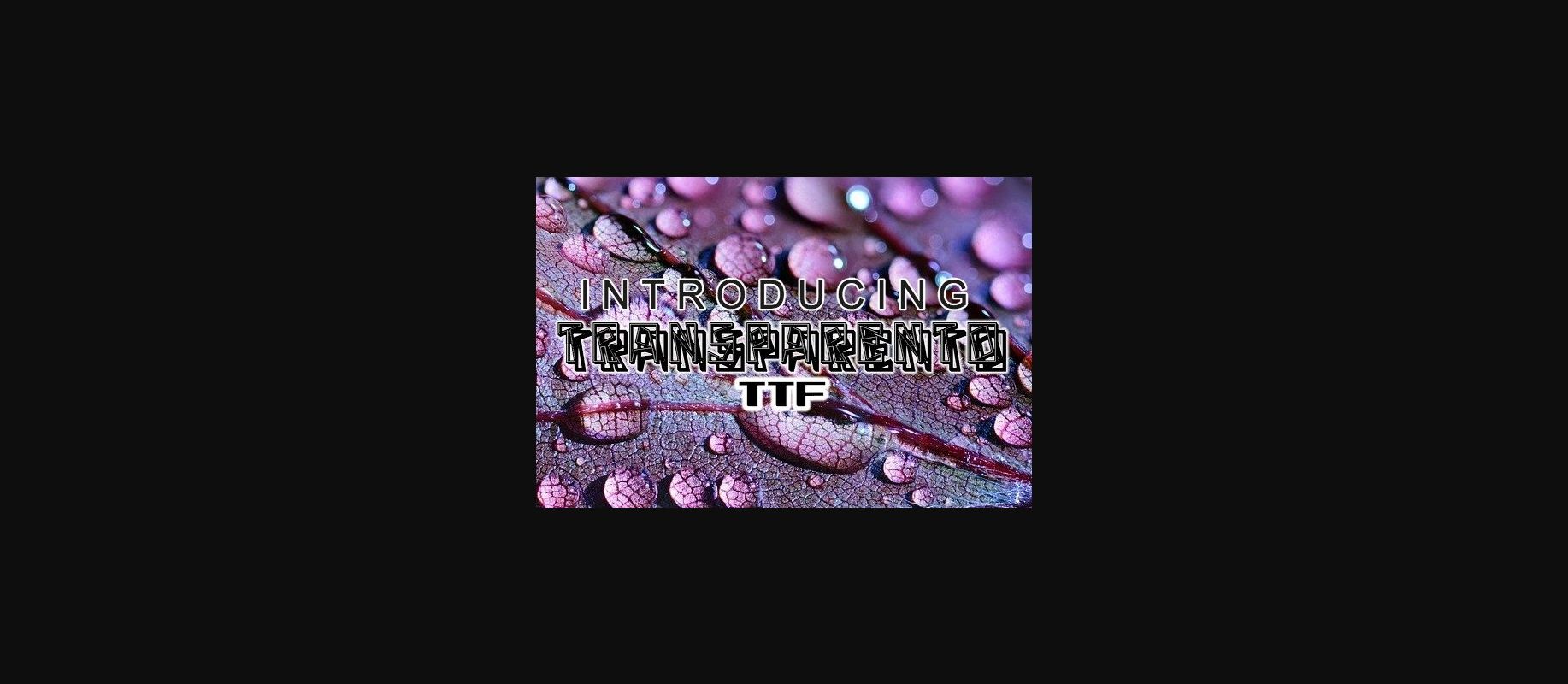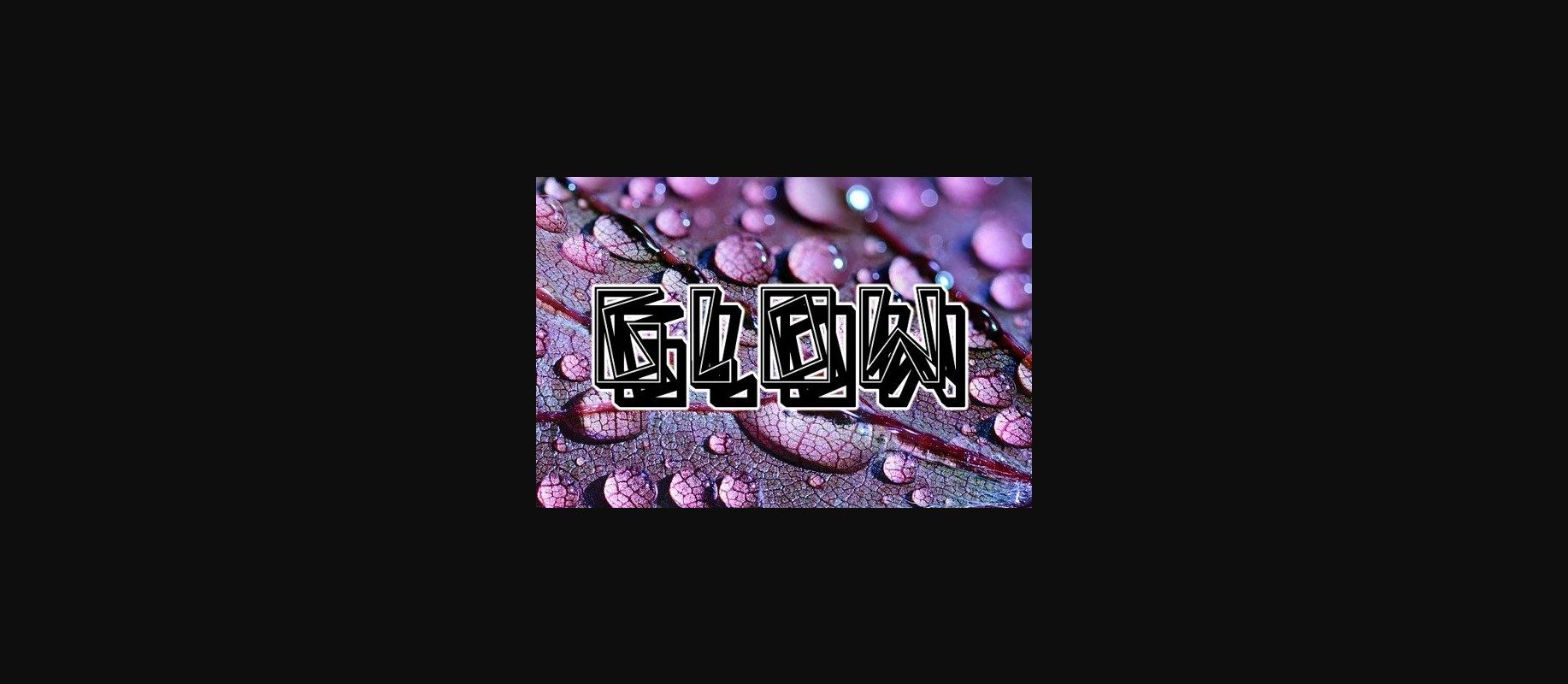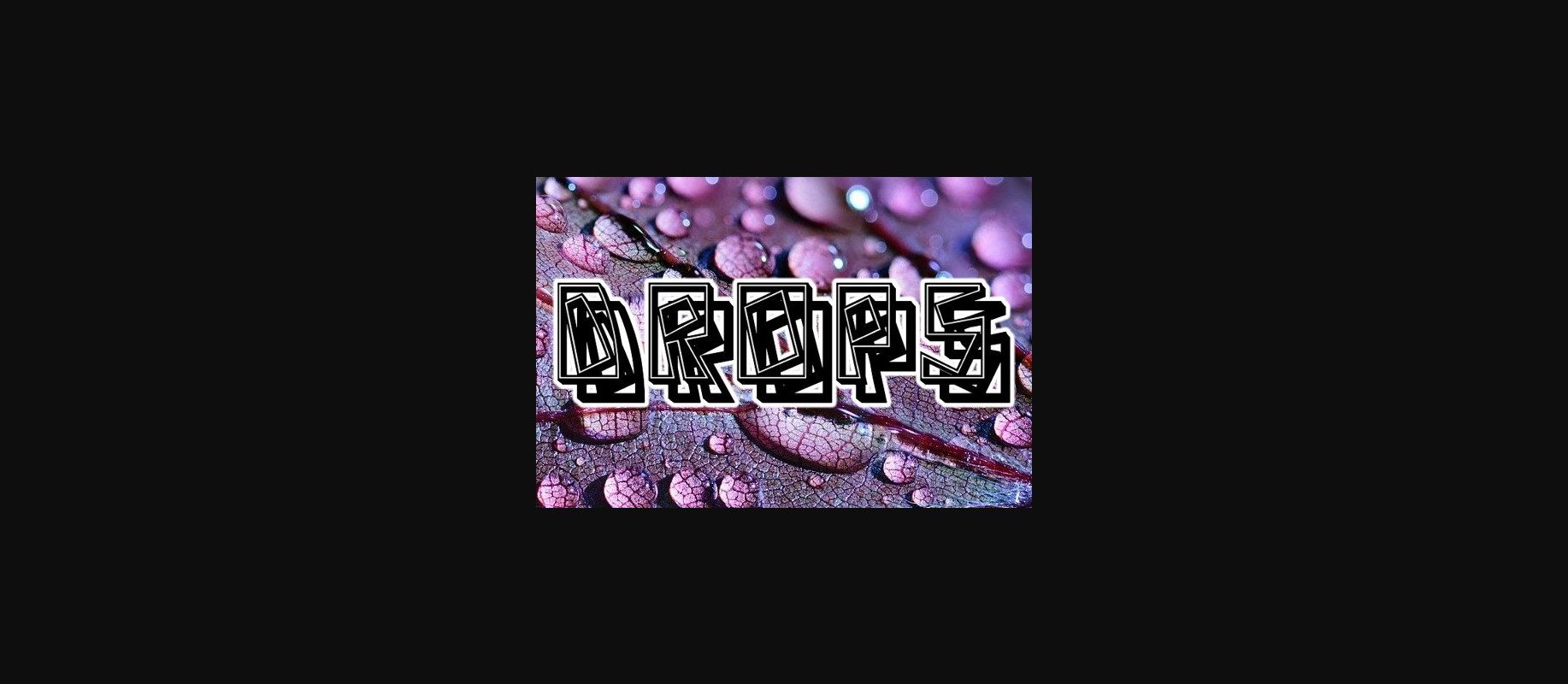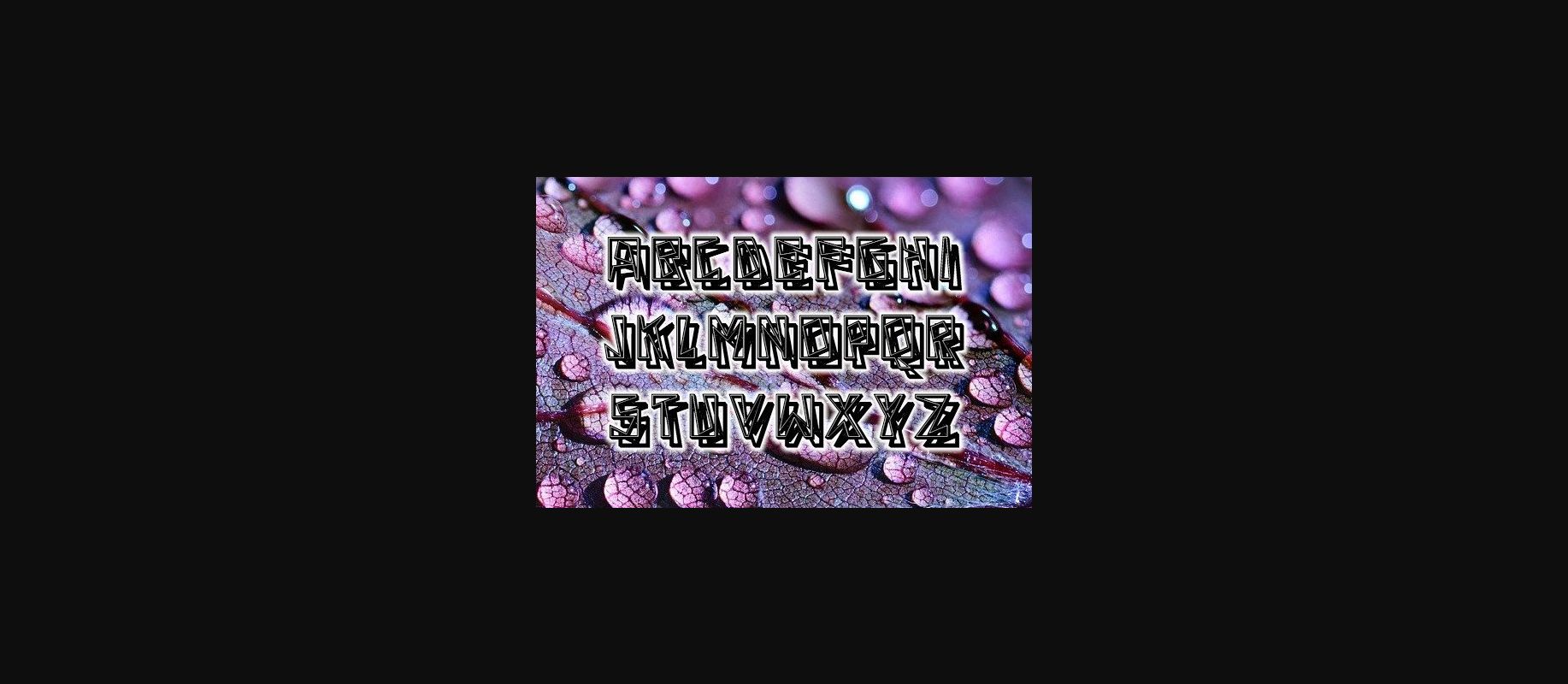
Transparento Font
About Transparento Font
Transparento is an awesome decorative typeface that will look stunning on any of your projects. Use this font on banners and t-shirts.